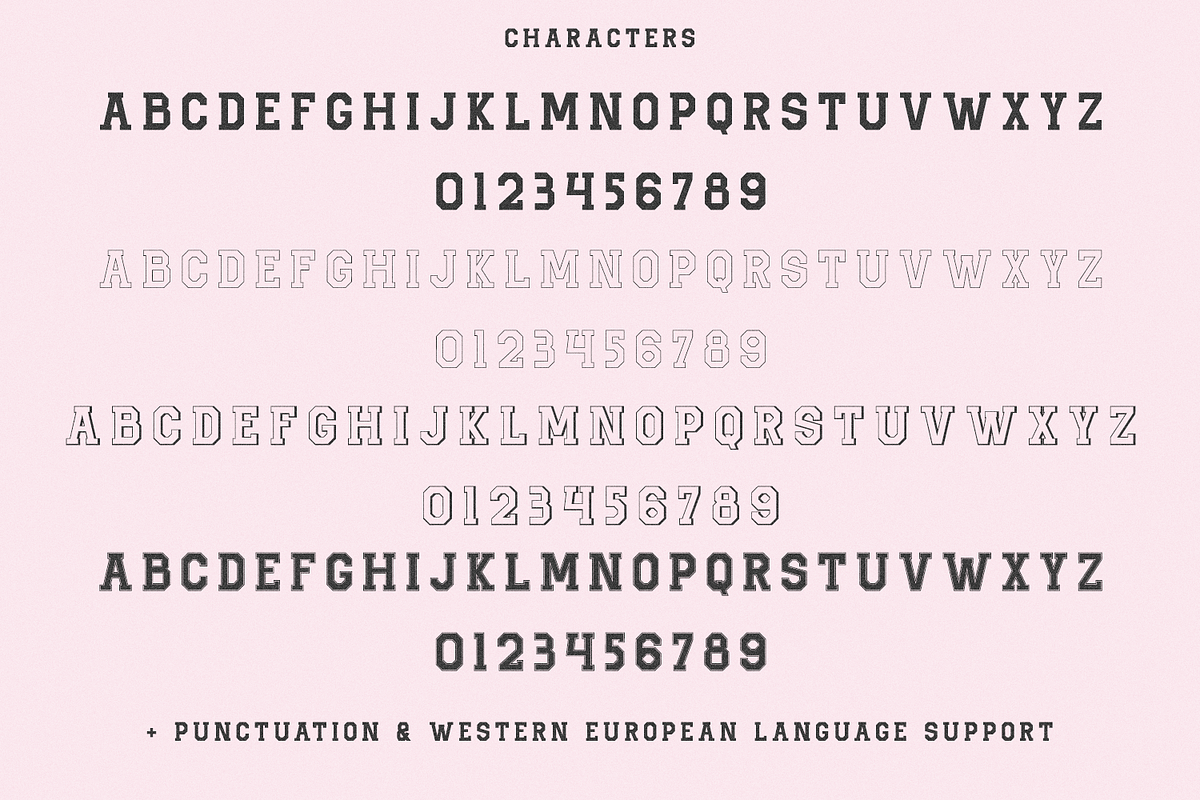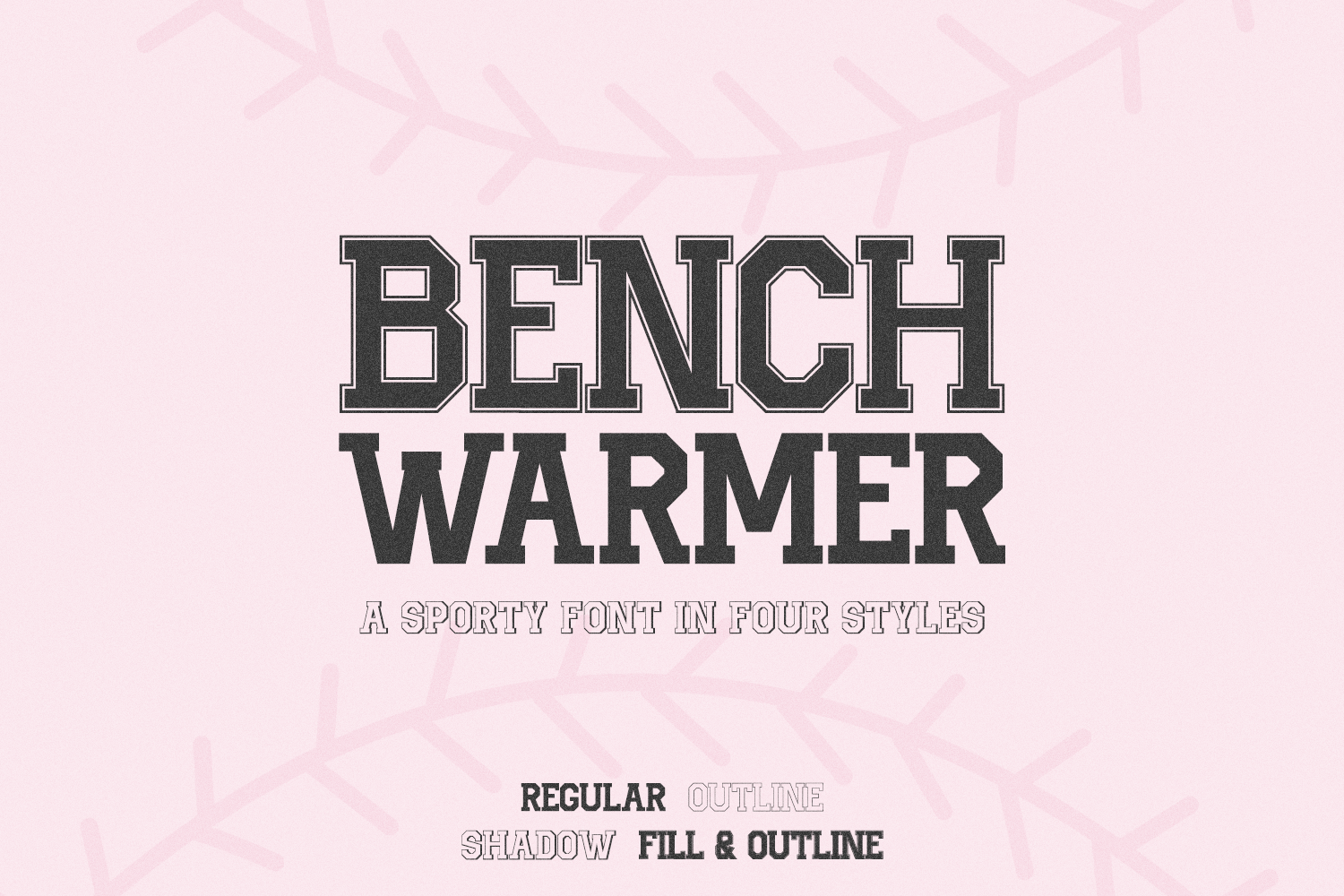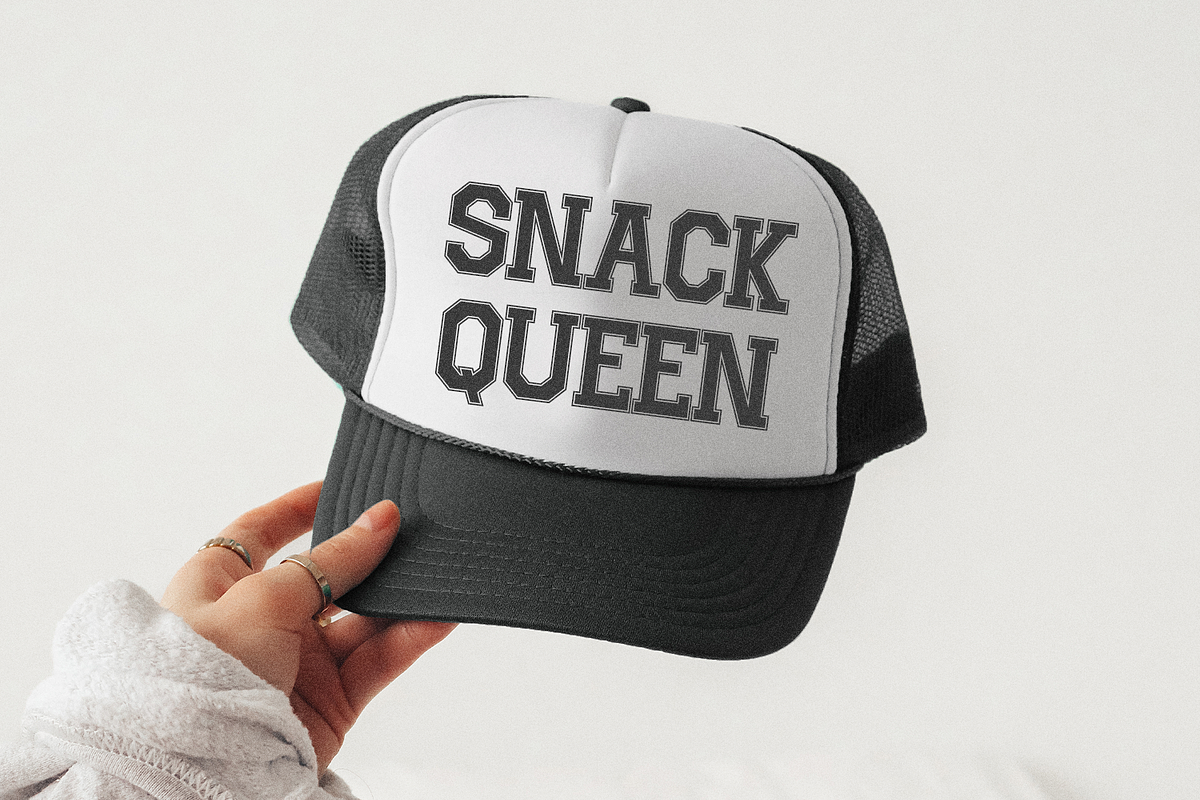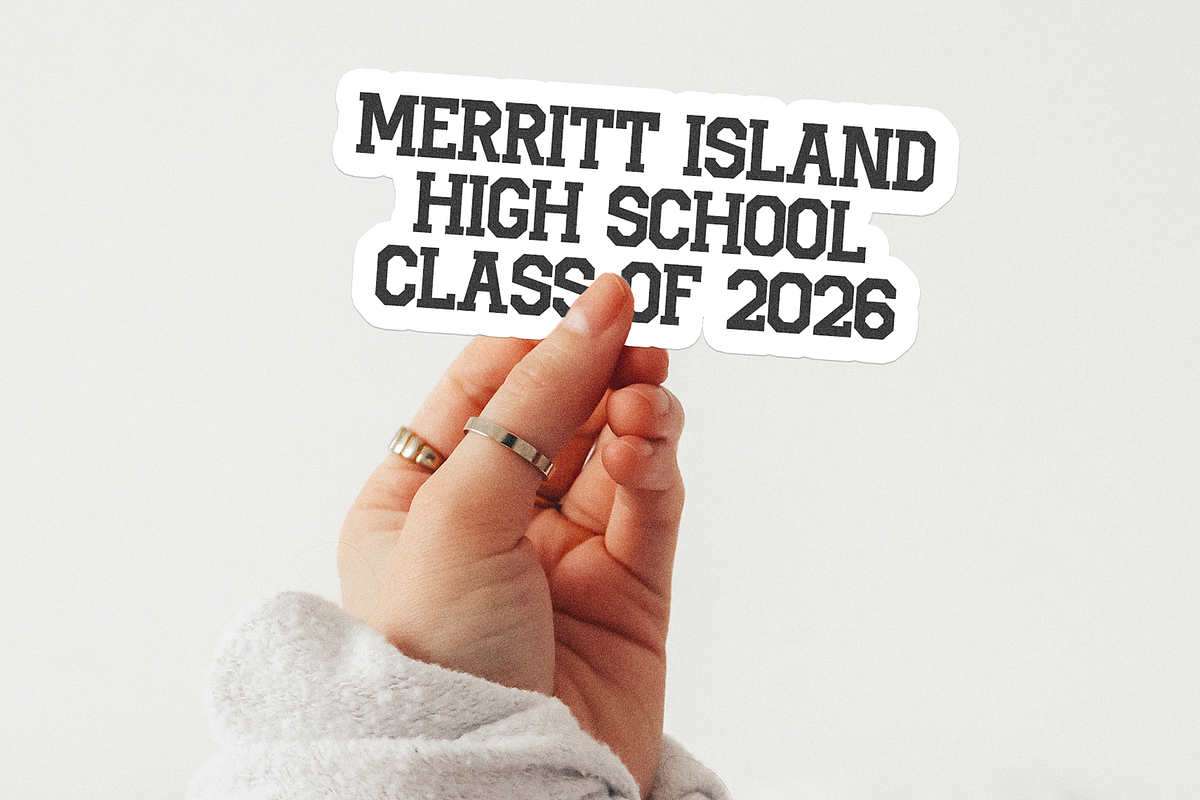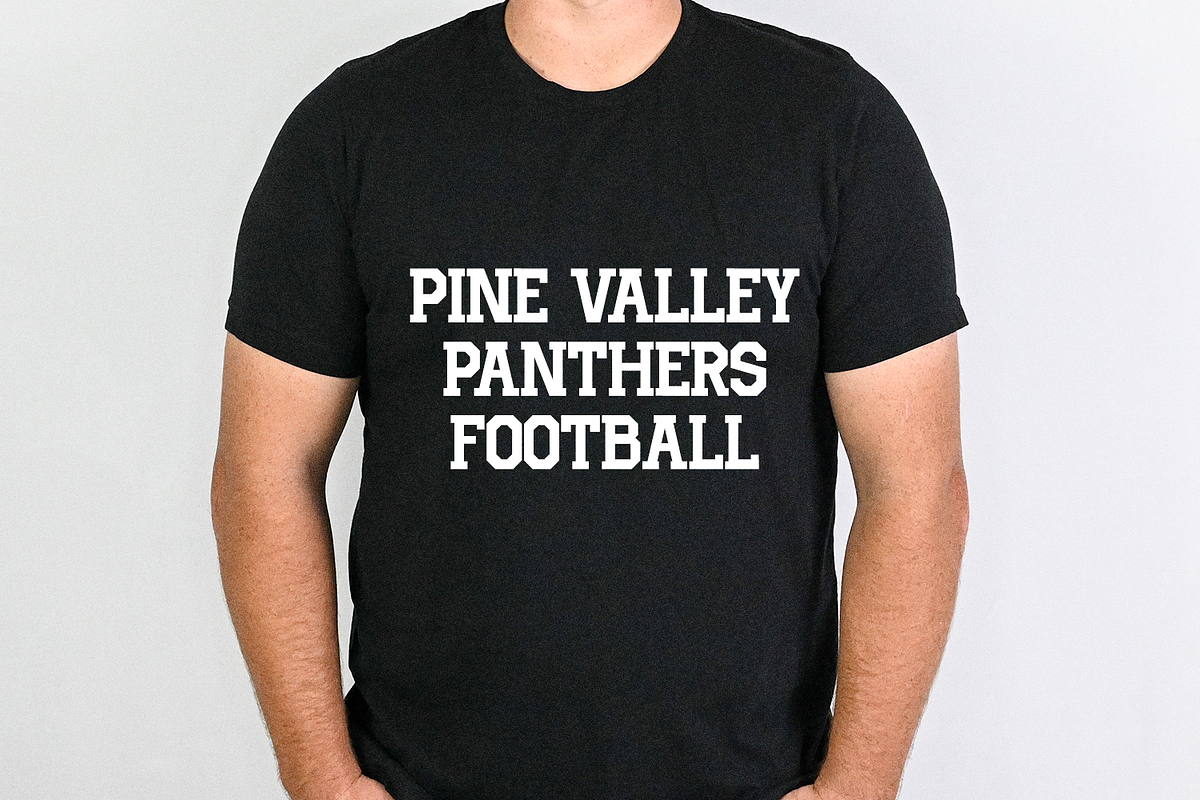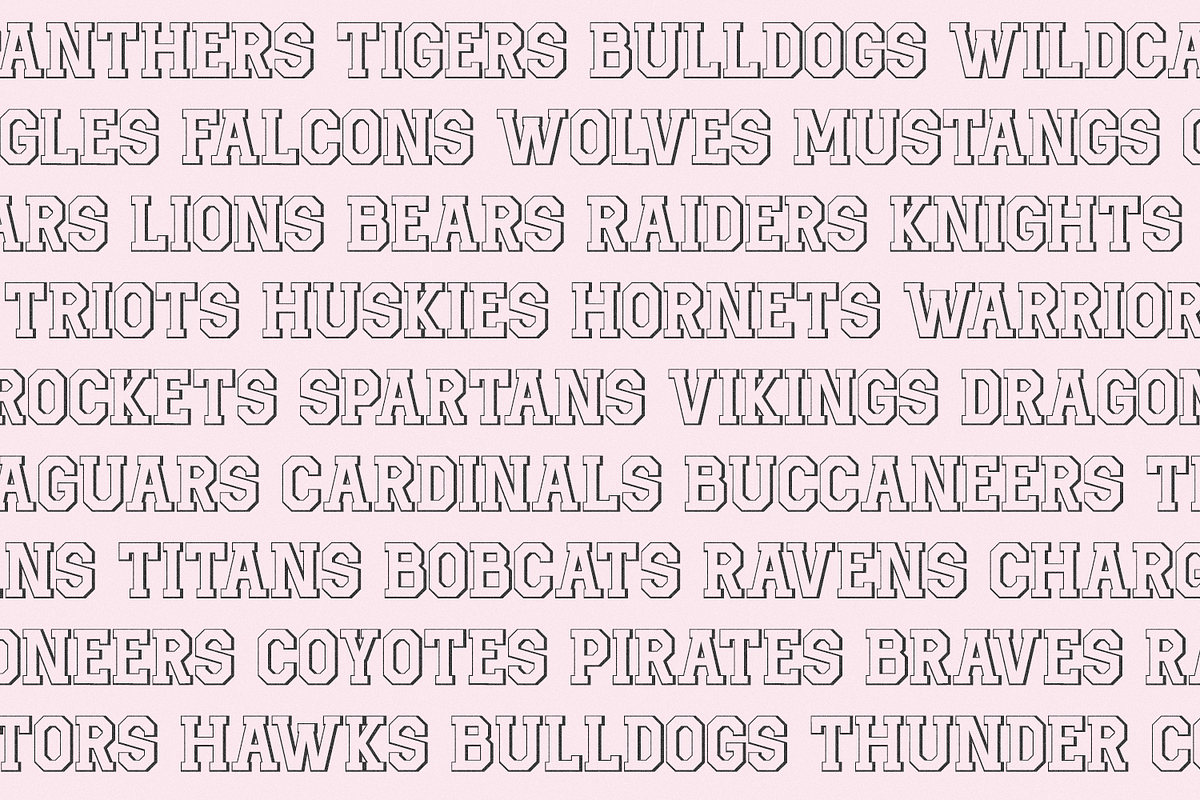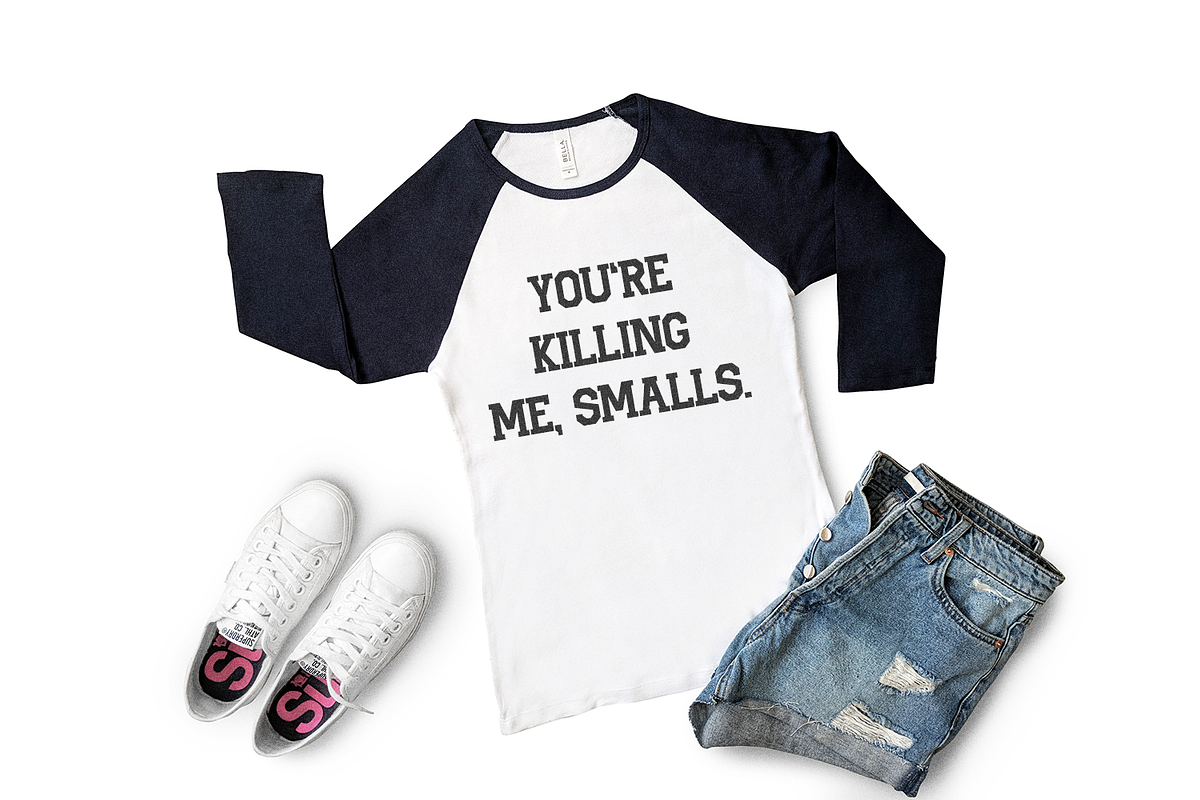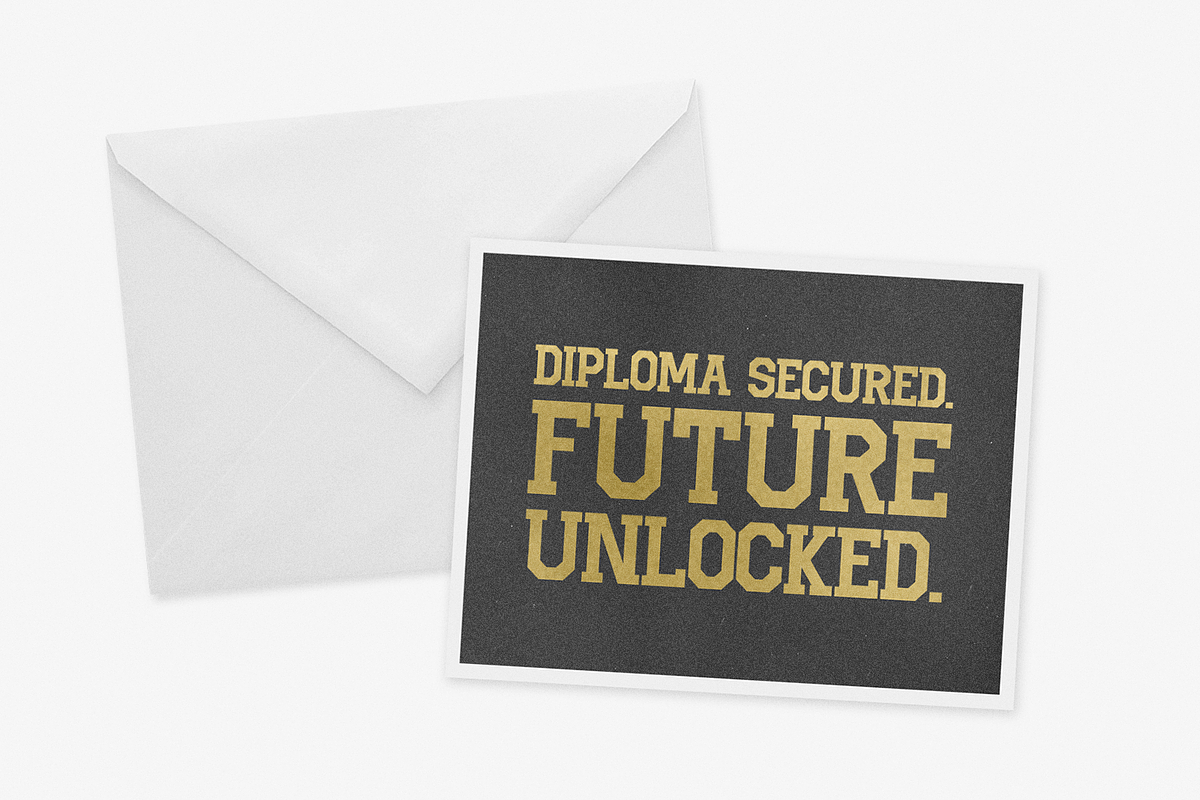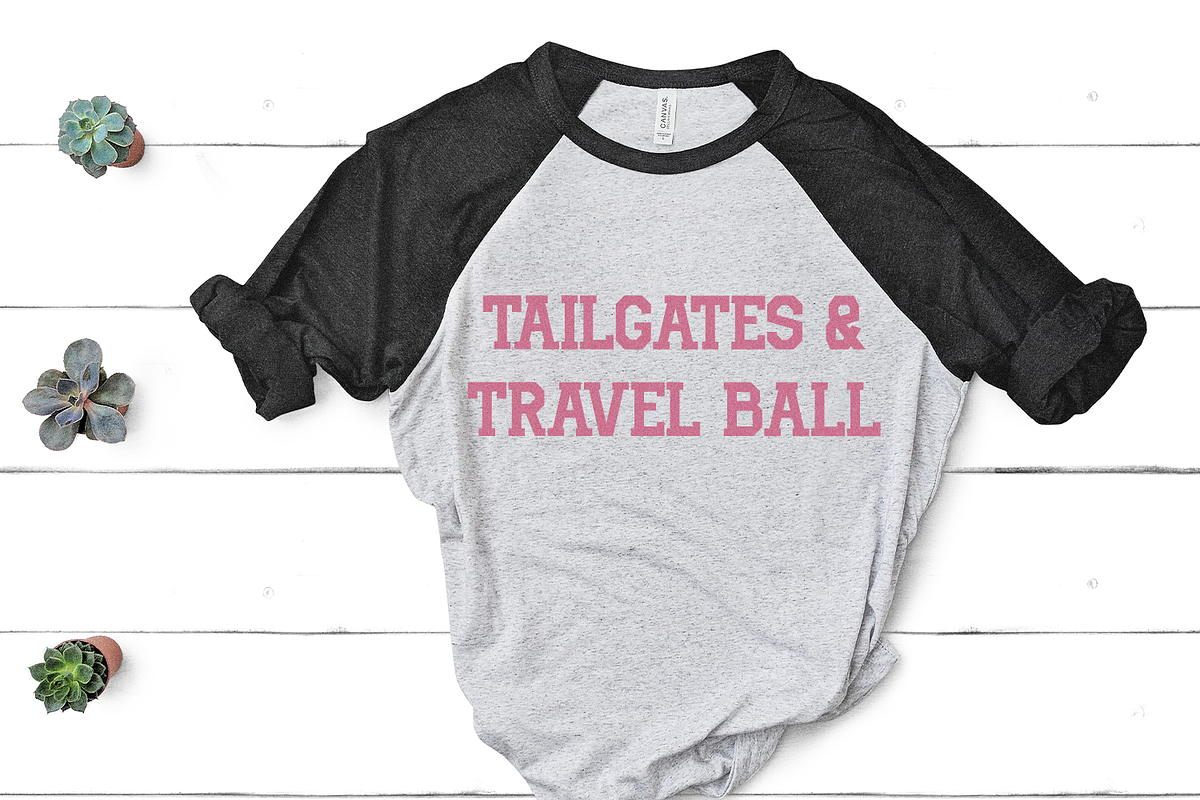
Benchwarmer - Sports Font Family
Meet Benchwarmer, a bold varsity font family that's ready for game day… or maybe just cheering from the sidelines. Inspired by classic letterman jackets and collegiate athletics, this all-caps typeface brings clean lines, crisp angles, and timeless school spirit to everything you create.
This four-font family gives you plenty of ways to customize your designs. Use the solid version for bold, attention-grabbing headlines, add the outline style for a classic varsity look, or layer the fonts together to create dimensional lettering that's perfect for shirts, signs, decals, posters, and more. The matching styles make it easy to build professional-looking designs in just a few clicks.
Benchwarmer is an excellent choice for Cricut and Silhouette projects, custom apparel, school spirit wear, graduation shirts, sports team designs, booster club merchandise, teacher projects, classroom decor, locker decorations, banners, pennants, pep rally signs, and personalized gifts. It's equally at home on jerseys, tote bags, tumblers, mugs, stickers, logos, social media graphics, and branding that calls for a clean athletic aesthetic.
This bold font family stays readable at large sizes, making it a perfect display font for headlines, titles, names, monograms, and statement pieces.
Perfect for creating:
• Varsity and letterman-style designs • School spirit apparel and accessories • Team shirts and sports merchandise • Graduation and senior class projects • Mascot graphics and pep rally decor • Classroom signs and teacher resources • Cricut and Silhouette crafts • Stickers, decals, and vinyl projects • Logos and athletic branding • Posters, flyers, banners, and social media graphics
Each font in the Benchwarmer family includes:
- all caps characters programmed into upper & lowercase slots
- numbers + punctuation
- Western European language support - English, French, Spanish, Portuguese (Brazil), Portuguese (Portugal), Italian, German (Germany), German (Austria), Dutch, Danish, Swedish, Norwegian (Bokmål and Nynorsk), Finnish, Icelandic, Irish, Welsh